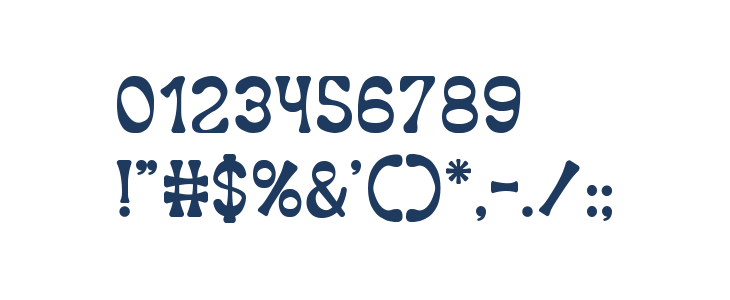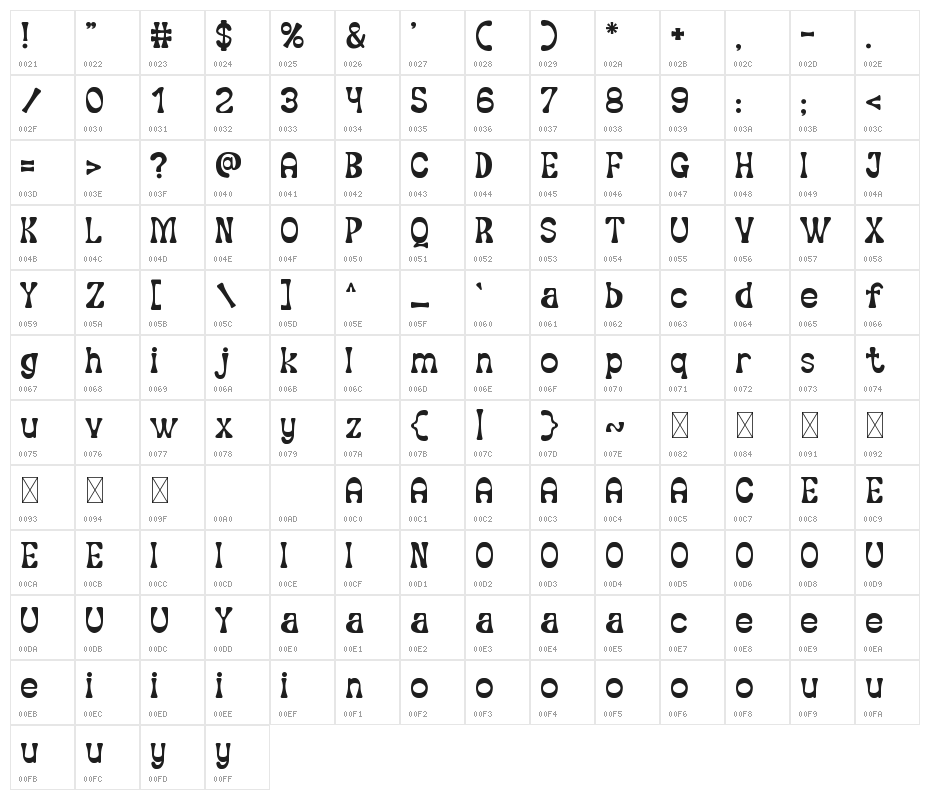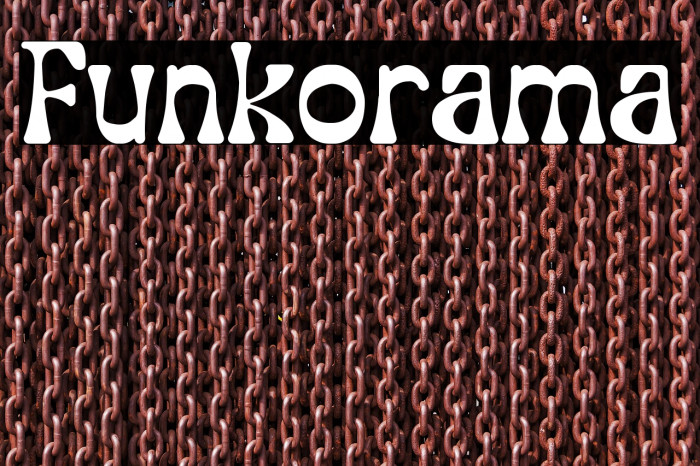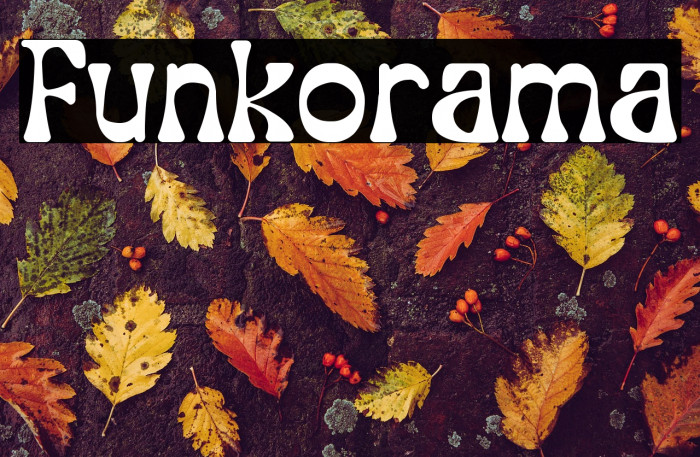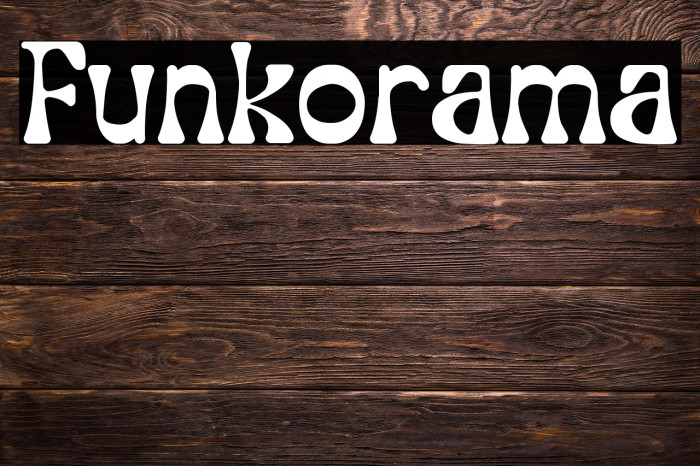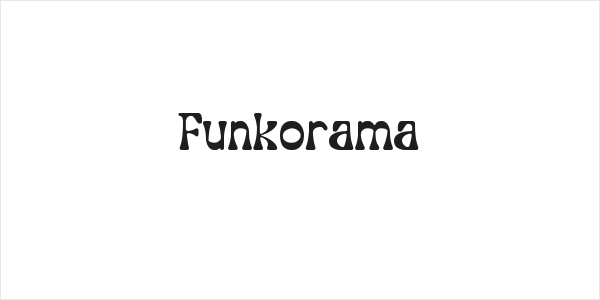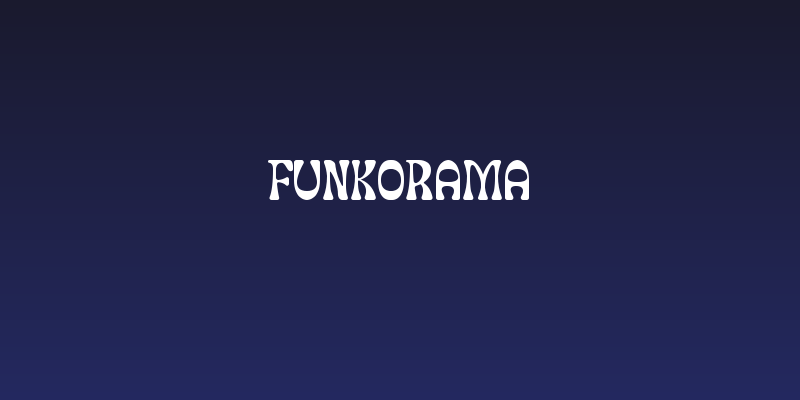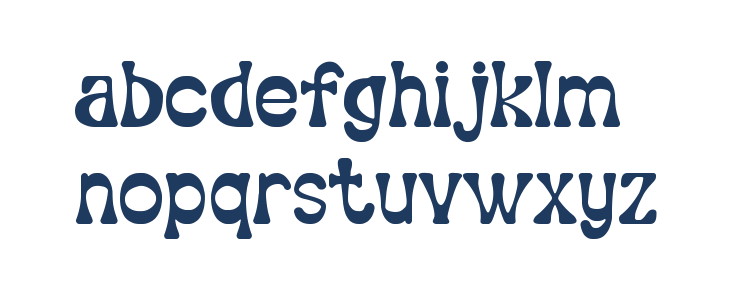
Funkorama Font
Funkorama Description
This font exudes a playful and retro vibe, characterized by its bold and rounded letterforms. The exaggerated curves and whimsical shapes give it a distinctive, funky appearance that stands out. Each character is crafted with a unique flair, making it perfect for creative and eye-catching designs. The font maintains a consistent weight throughout, providing a balanced and cohesive look. Its boldness and unique style make it ideal for projects that require a touch of fun and nostalgia.
| Overall Style | Retro, Playful |
| Proposed Projects | Ideal for posters, music album covers, children's books, and retro-themed designs. |